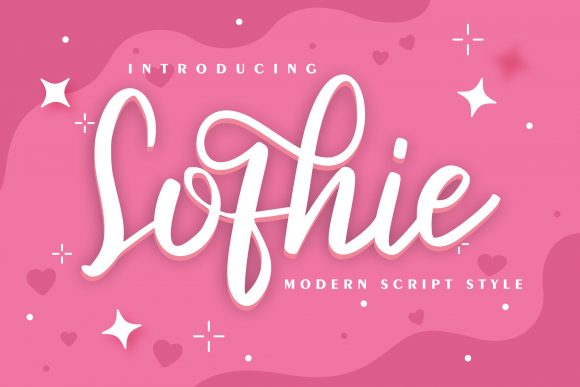
Unleash your creativity and add a touch of elegance to your designs with Sofhie Font, a captivating handwritten font that will transform your words into breathtaking works of art. With its graceful curves and flowing script, Sofhie Font embodies sophistication and charm, making it the perfect choice for a wide range of projects.
Transport yourself to a world of enchantment and whimsy as you explore the endless possibilities of Sofhie Font. Let your imagination soar and create stunning posters that captivate your audience with their artistic flair. Craft heartfelt thank-you cards that express your gratitude in a way that's both personal and unforgettable. Share words of wisdom and inspiration with quotes that come to life in the beautiful strokes of Sofhie Font.
Elevate your greeting cards to new heights of creativity, adding a touch of magic to every occasion. Design logos and business cards that exude professionalism and leave a lasting impression on potential clients. Sofhie Font is not just a font; it's a gateway to a world of endless design possibilities.
Embrace the beauty of personalization and make your designs truly unique. With Sofhie Font, you'll have the power to transform ordinary text into captivating works of art, leaving a lasting impression on anyone who encounters your creations.
Don't settle for ordinary fonts when you can have Sofhie Font, the key to unlocking your creative potential. Its versatility knows no bounds, adapting seamlessly to a myriad of projects, each one infused with a touch of elegance and charm.